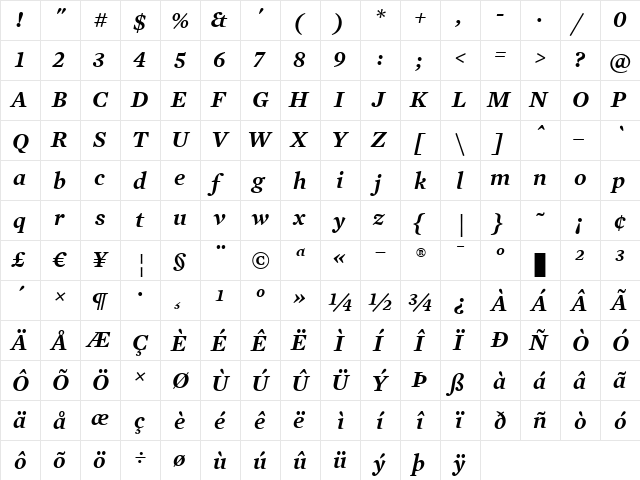
Mercury Text G1 SemiBold Italic Font Preview
Design Context for Mercury Text G1 Typeface
Mercury Text G1 takes a measured approach to typography — its balanced proportions and neutral character make it a reliable workhorse for both digital and print work. The slanted form adds forward momentum and visual energy. Its bold stroke weight gives it real presence on the page.
Pro Tip: Try Mercury Text G1 for annotation and caption copy alongside an upright companion — the contrast in angle creates a dynamic but ordered typographic system.